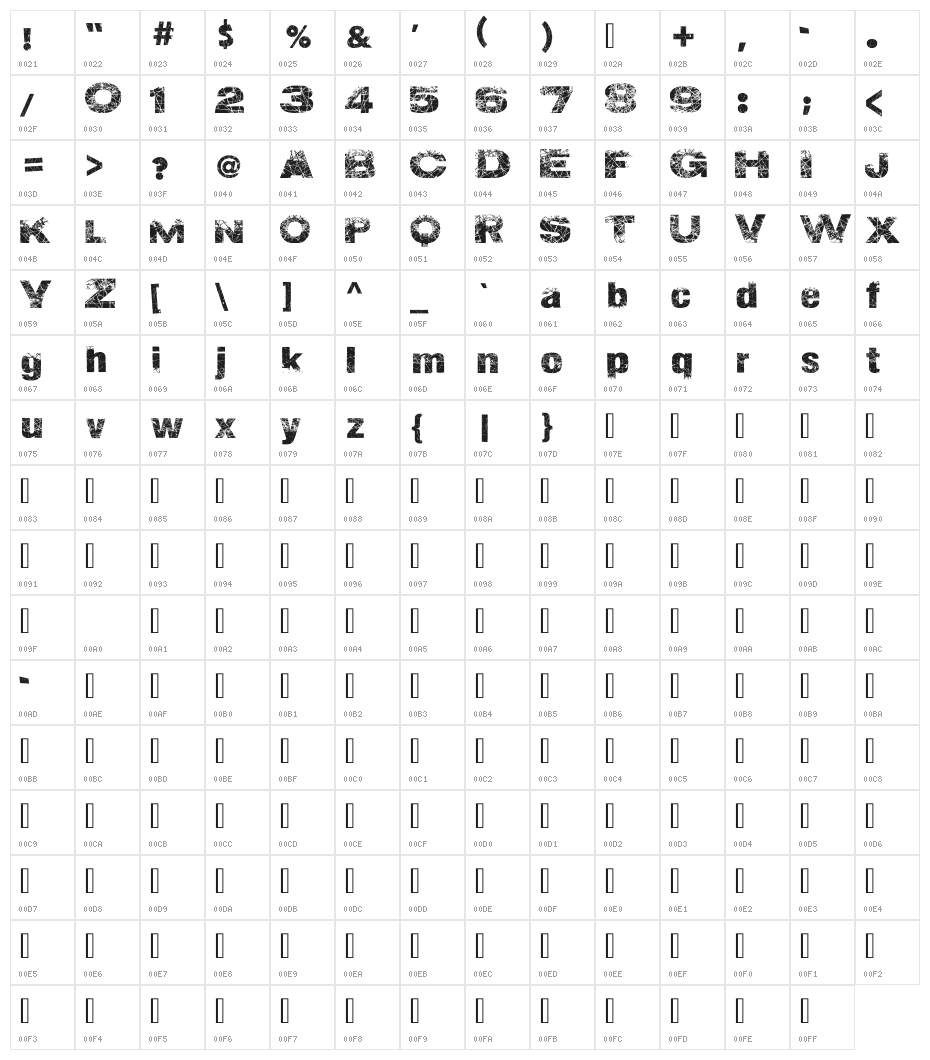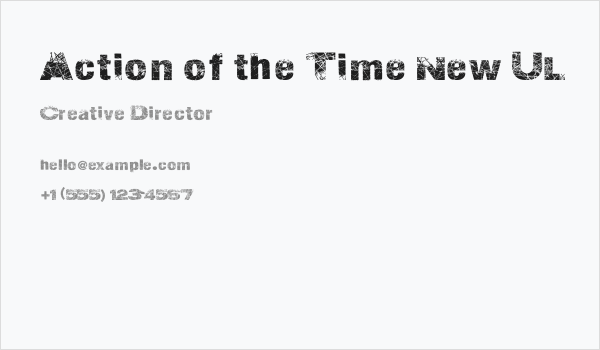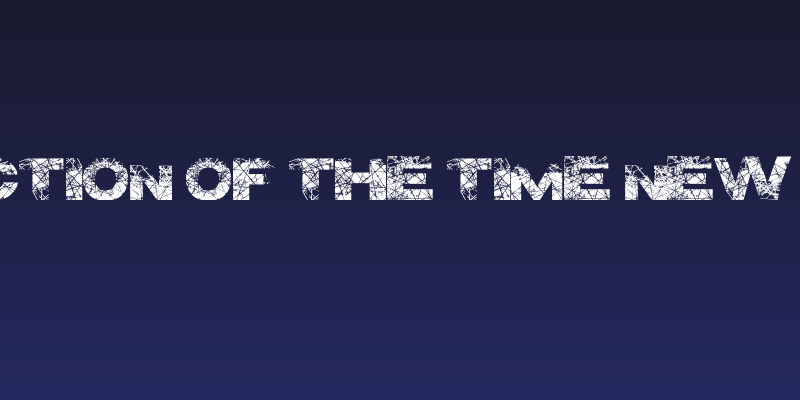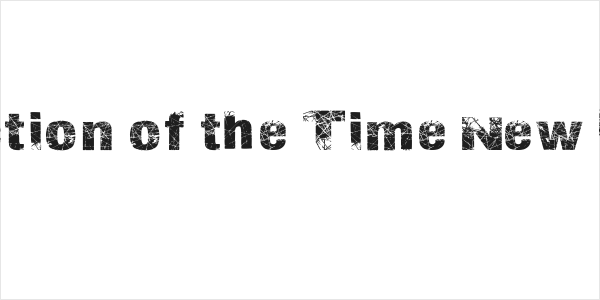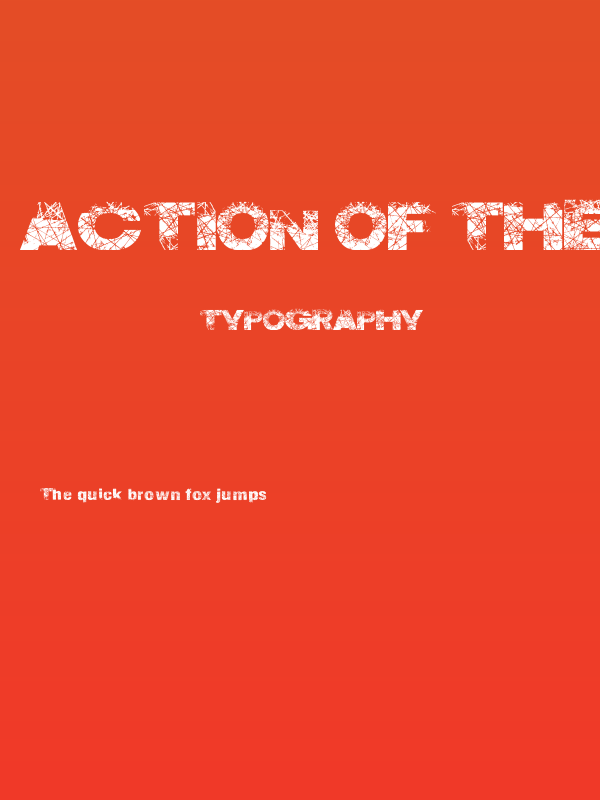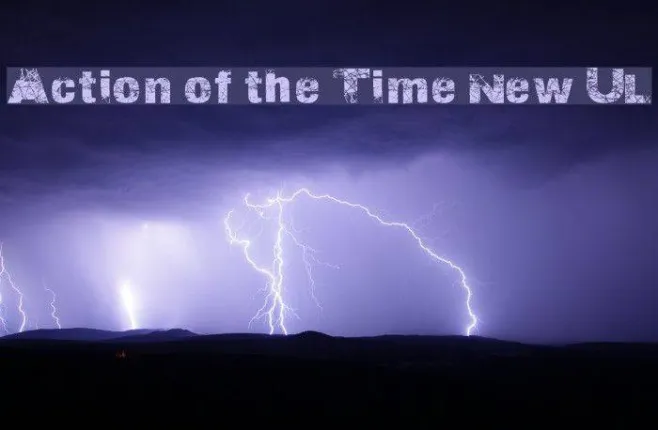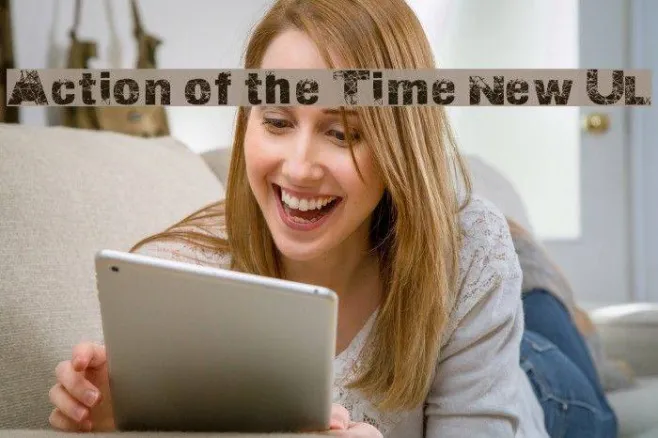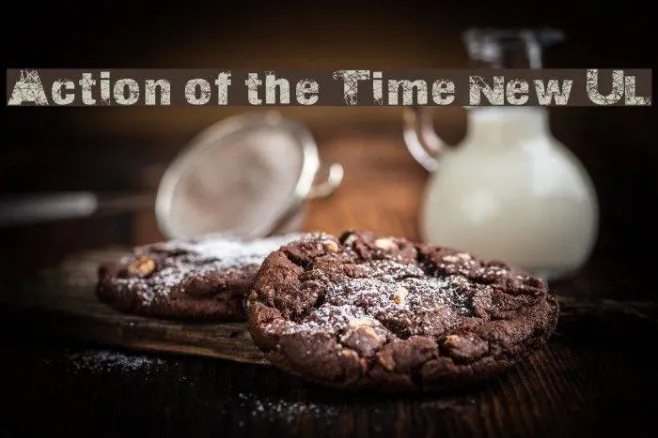
Action of the Time New UL Font
Action of the Time New UL Description
This font features a bold and distressed design, characterized by a textured, grunge-like appearance. The letters are thick and substantial, with a rough, uneven surface that gives them a dynamic and edgy feel. The uppercase and lowercase characters maintain a consistent style, with a strong presence that commands attention. The numerals and special characters follow the same rugged aesthetic, making the font suitable for projects that require a bold statement. The overall look is both modern and rebellious, ideal for creative and unconventional designs.
| Overall Style | Modern, Edgy |
| Proposed Projects | Ideal for album covers, posters, streetwear branding, and edgy graphic designs. |